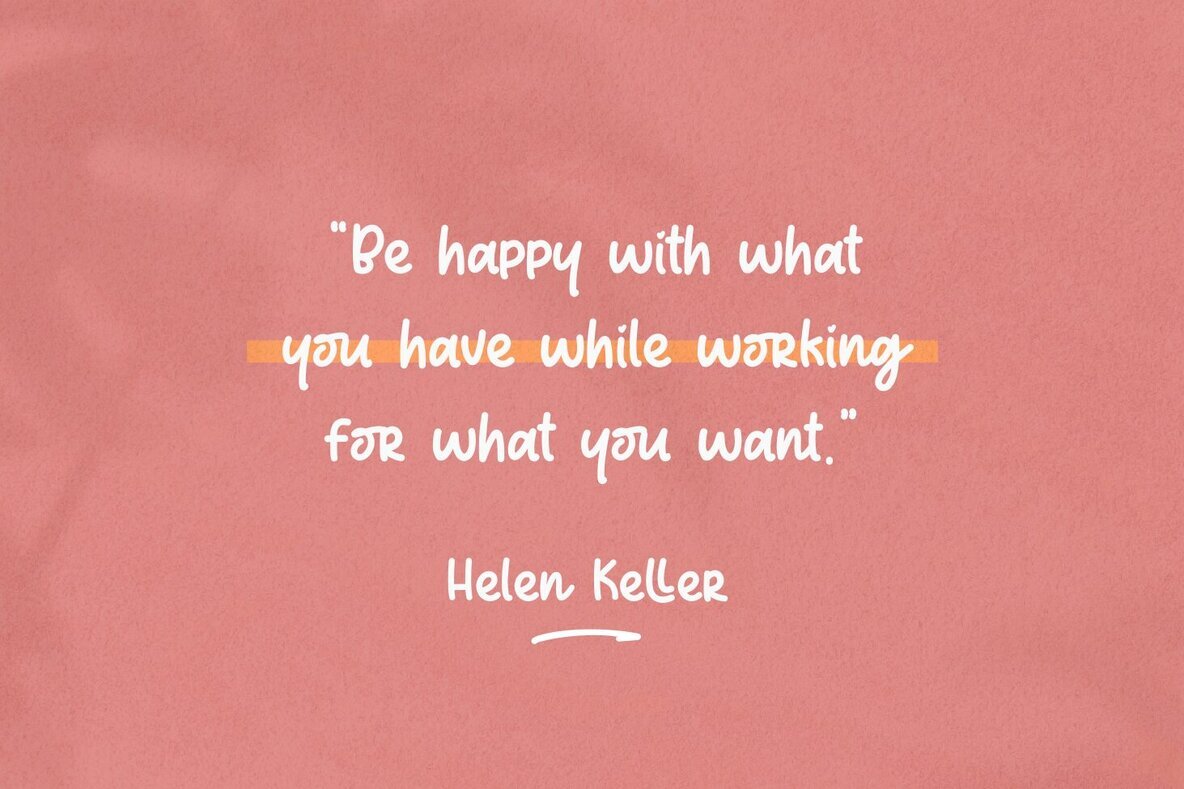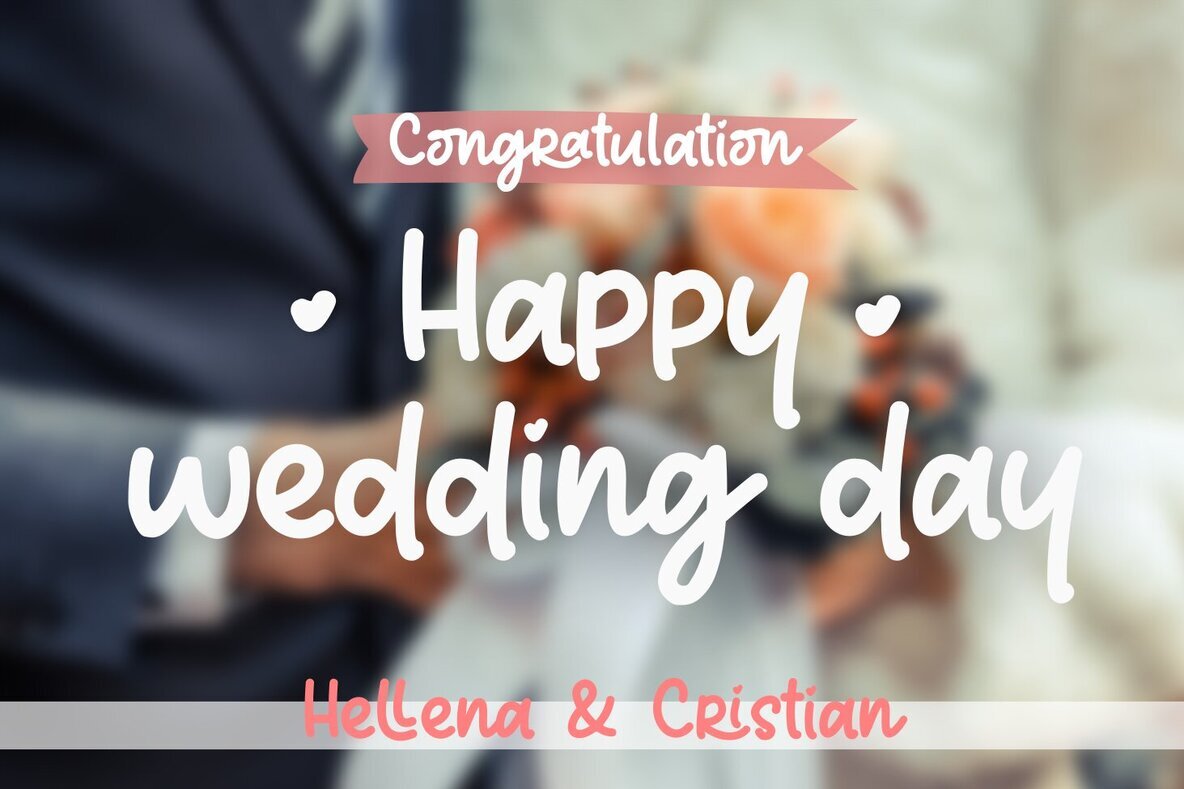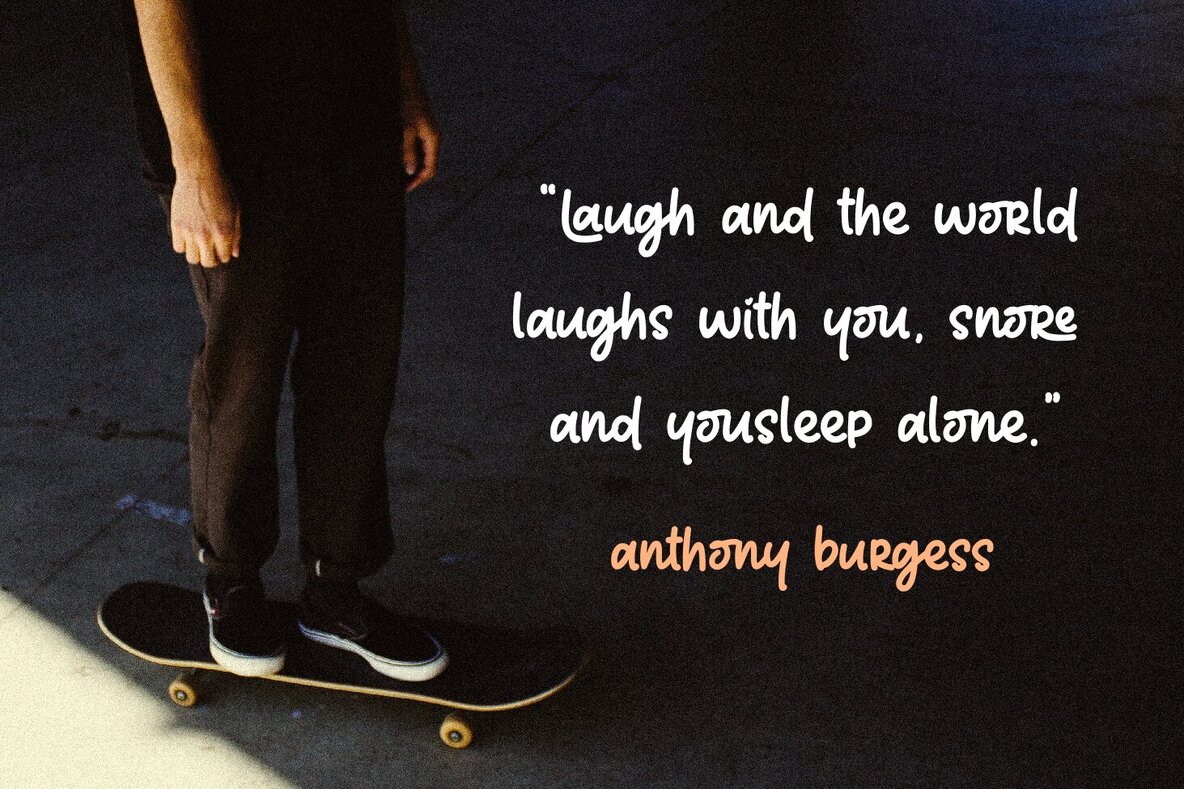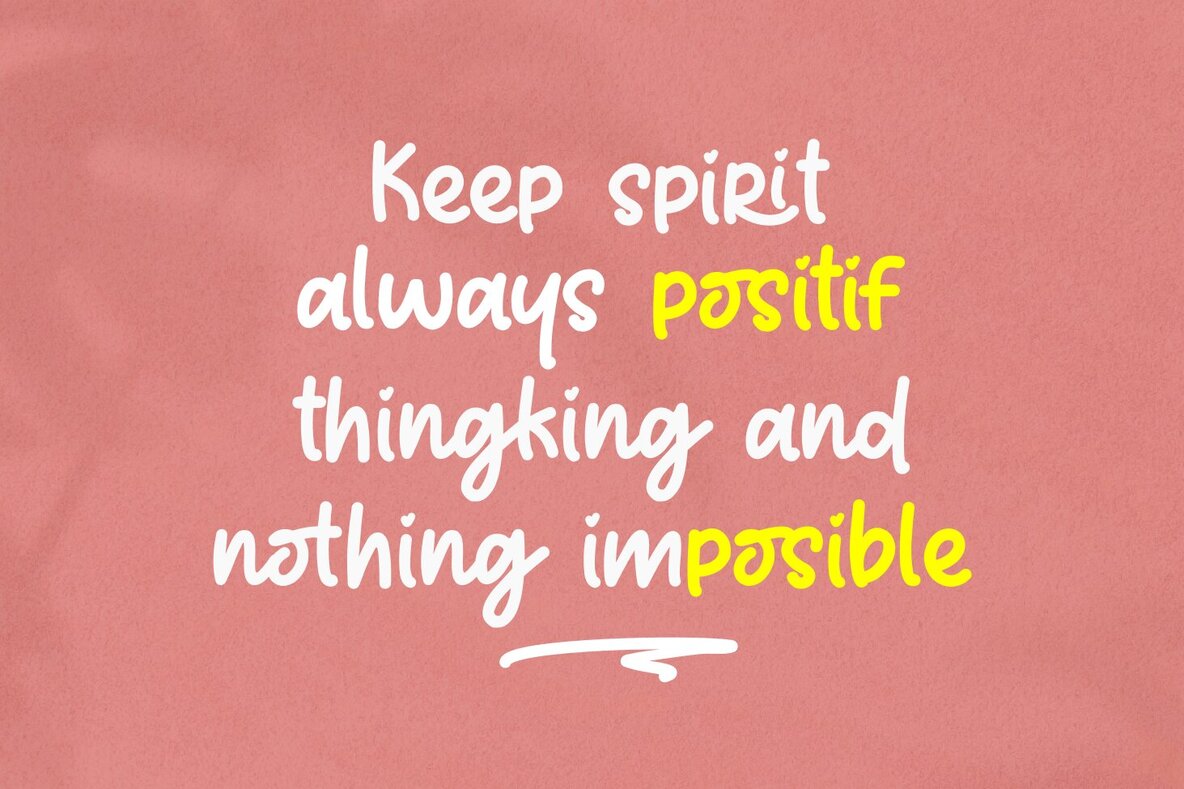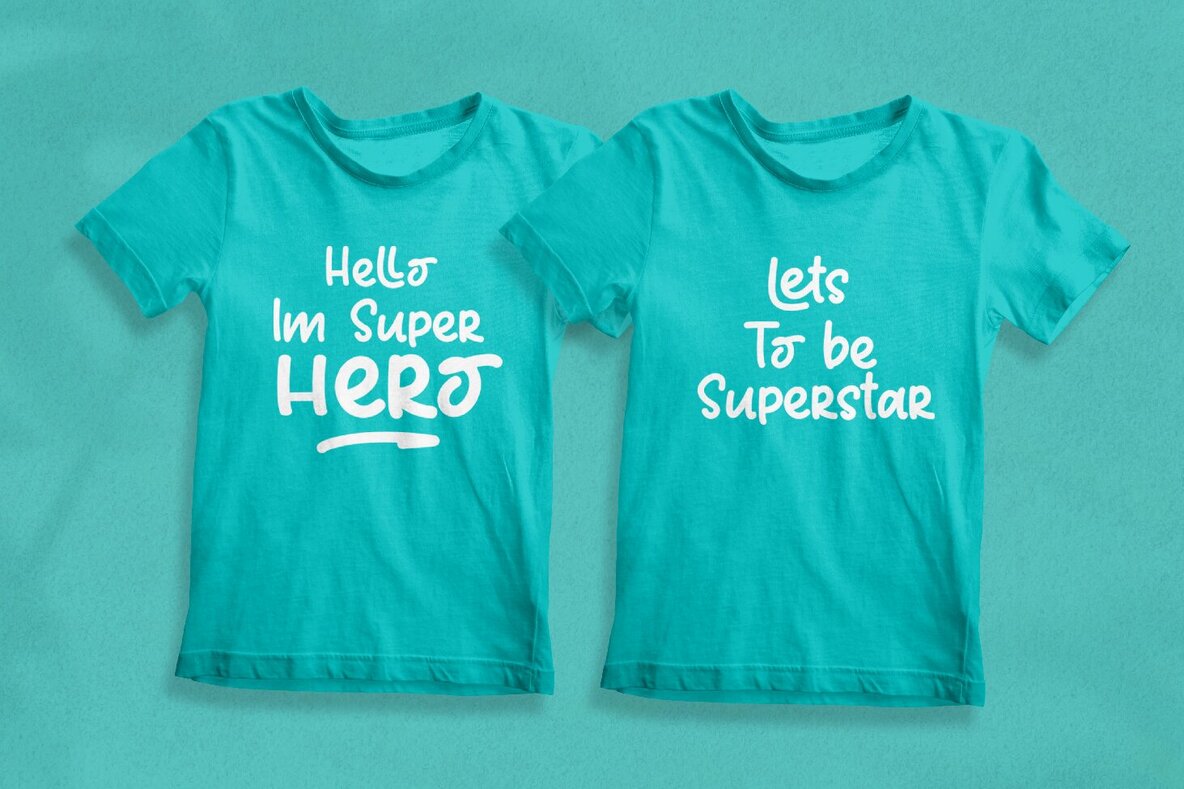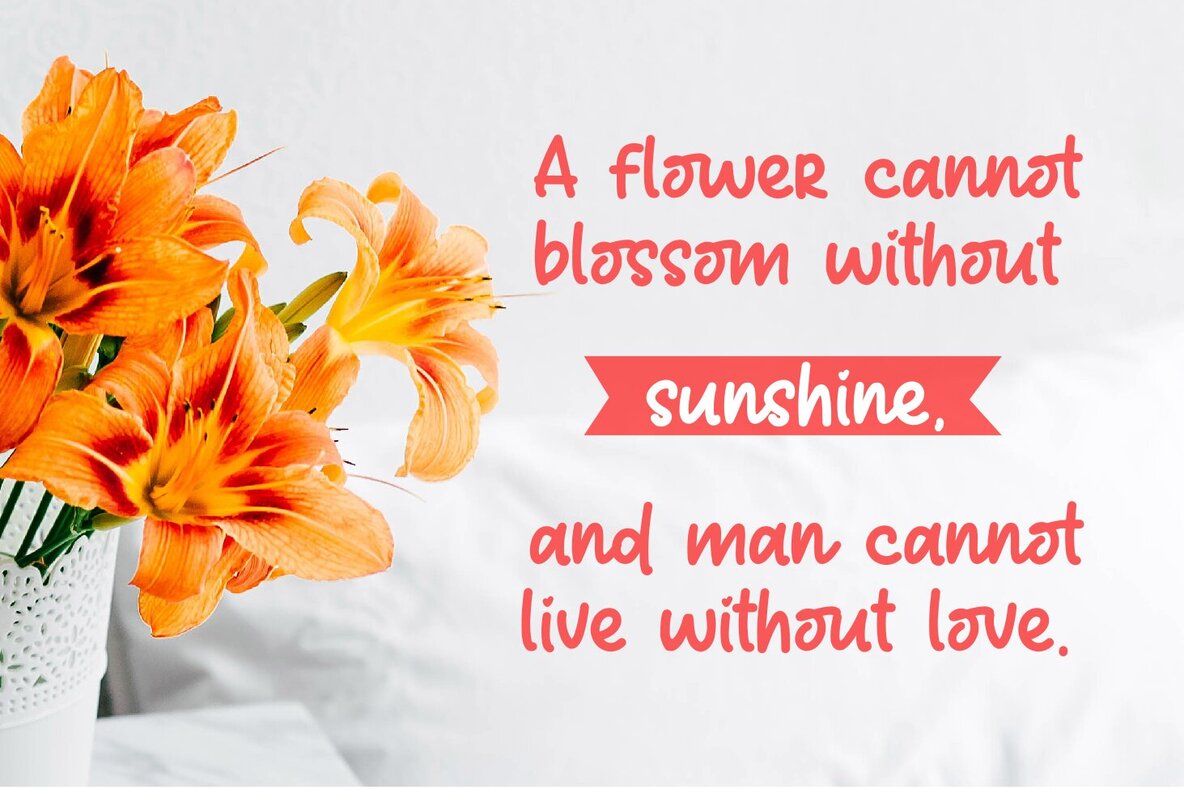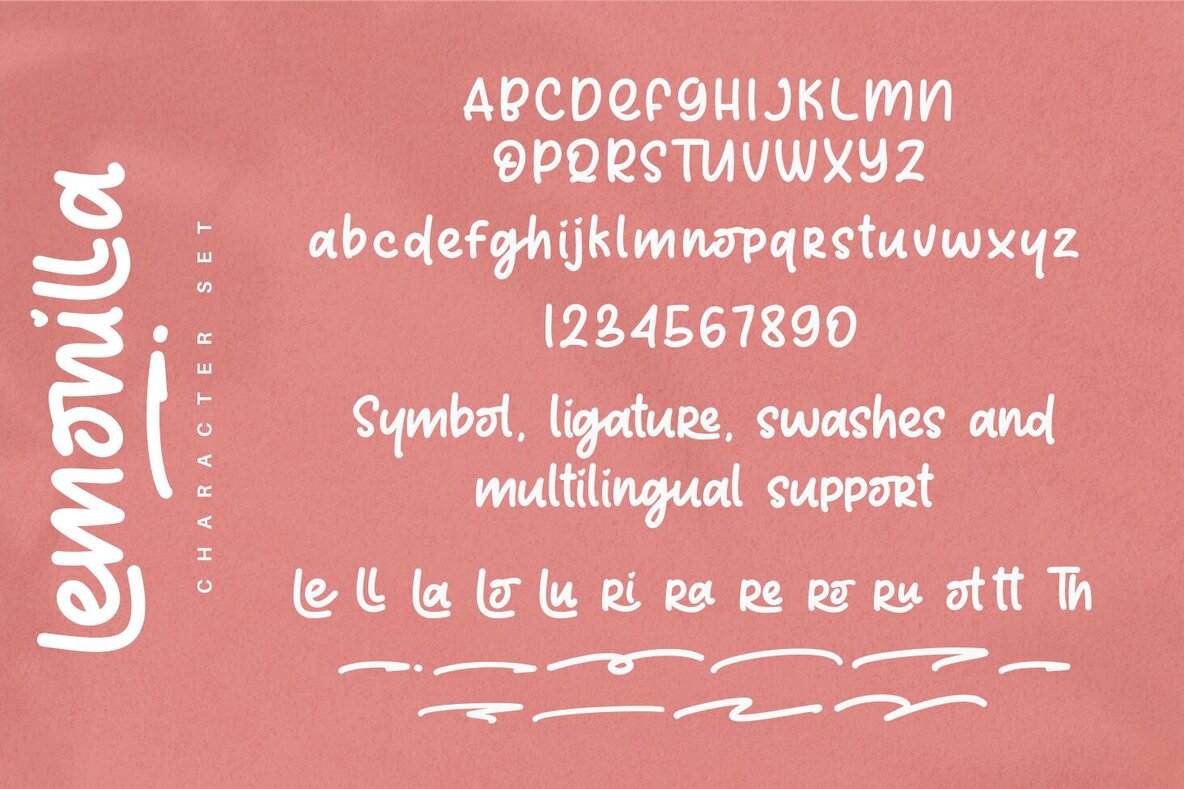
Lemonilla Font
Lemonilla Regular
Lemonilla by Zeenesia Studio is a charming, scripty font designed to add a playful touch to various design projects. Specially crafted to be smooth and easy to work with, Lemonilla is ideal for use with cutting machines like Cricut and Silhouette, ensuring clean cuts with reduced nodes in each glyph. We trust that Lemonilla will inspire your next project. We welcome any feedback or thoughts you might have. Thank you for choosing Lemonilla, and we're glad to assist you!Lemonilla: A Bouncy Script Font for Creative Projects